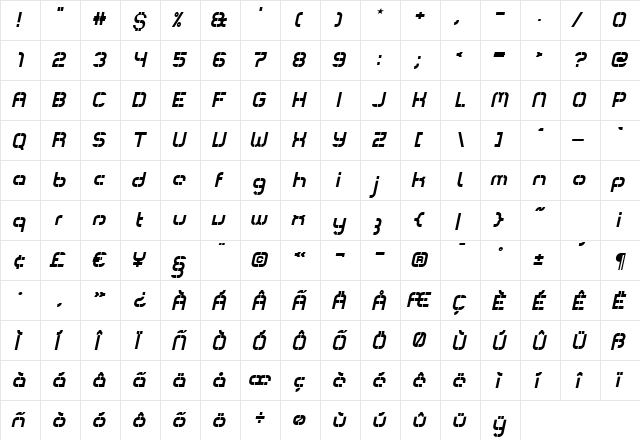
ComsatBox Italic Regular
Design Context for ComsatBox Italic Typeface
ComsatBox Italic offers clean, dependable letterforms without strong stylistic allegiance, making it a practical choice for designers who need flexibility. Its italic angle brings a sense of urgency and motion to the letterforms.
Pro Tip: Try ComsatBox Italic for annotation and caption copy alongside an upright companion — the contrast in angle creates a dynamic but ordered typographic system.